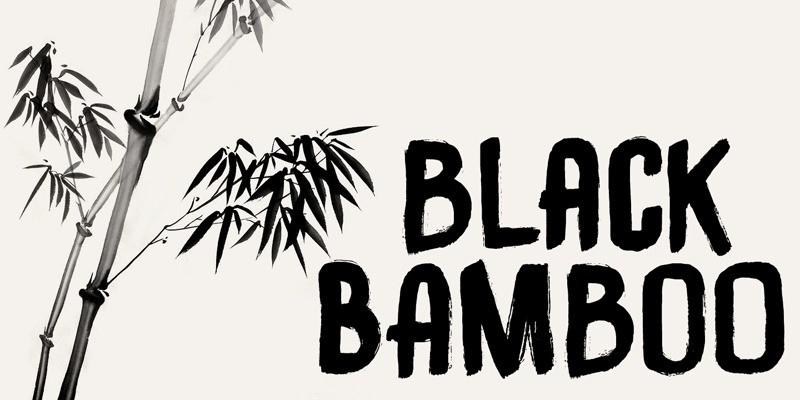
DK Black Bamboo Font
DK Black Bamboo Font, is a friendly, brush stroke font that looks at home in a wide range of designs! This font is a dry brush stroke script, and can give your designs an elegant yet completely modern look.